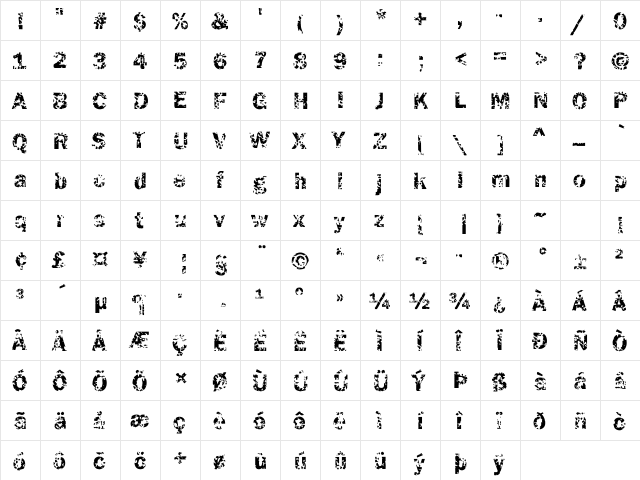
Funky05 Becker Regular
Design Context for Funky05 Becker Typeface
Funky05 Becker trades formality for fun, with bouncy, characterful letterforms that bring warmth and energy to any project.
Font Pairing: Pairs well with a rounded or humanist sans for body copy, maintaining the friendly tone without relying on Funky05 Becker to carry extended reading.
Pro Tip: Use Funky05 Becker at larger display sizes where its expressive character can land. Pair with a clean, simple sans for body copy to maintain readability.